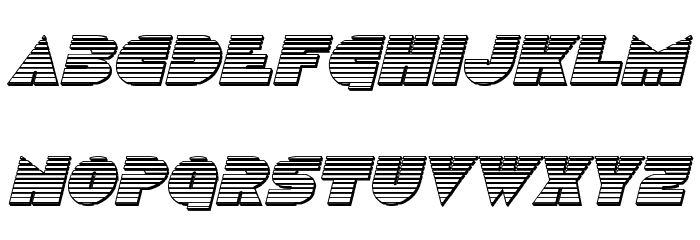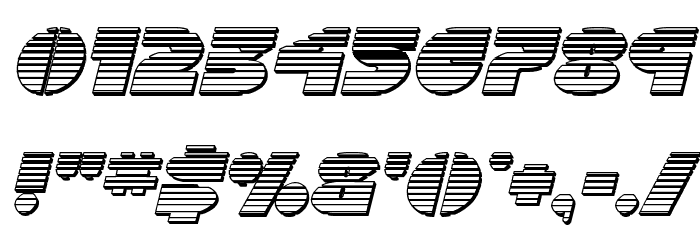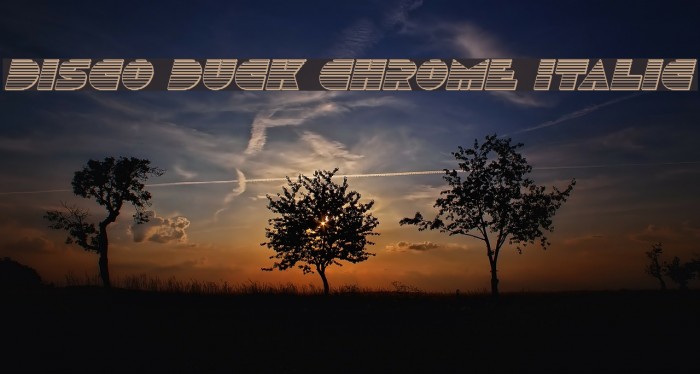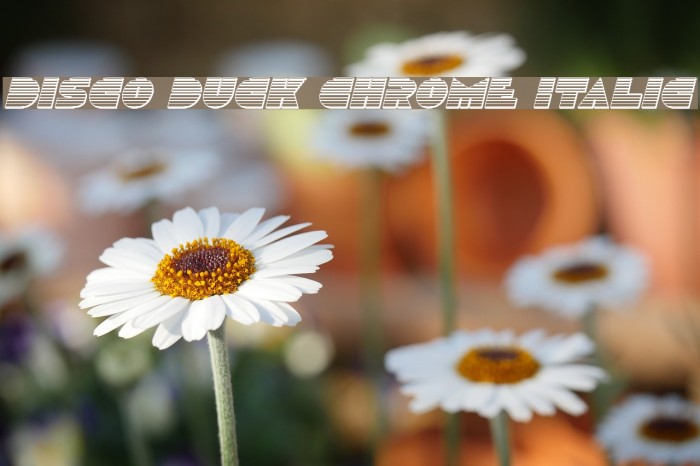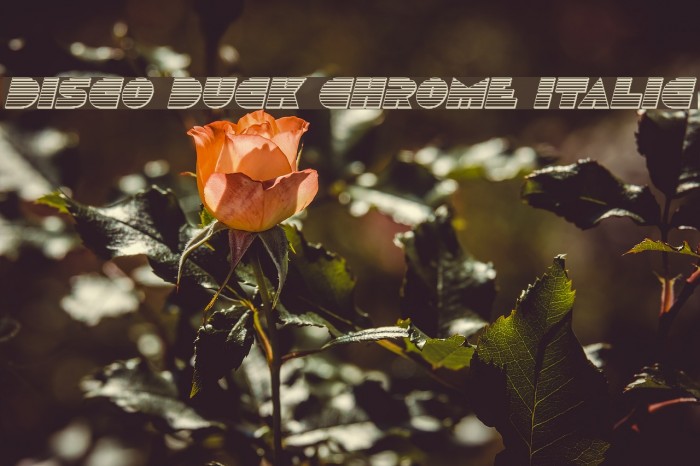
Disco Duck Chrome Italic Font
This font features a bold, decorative style with a distinct retro vibe. The characters are designed with horizontal stripes that give a sense of movement and energy, reminiscent of disco-era aesthetics. The italic slant adds a dynamic quality, enhancing the playful and vibrant feel. Each letter and number is uniquely crafted to maintain readability while showcasing a strong visual impact. The special characters are equally stylized, maintaining the cohesive look of the font. This font is perfect for projects that require a fun, energetic, and eye-catching typeface.
A bold, retro-inspired decorative font with horizontal stripes and an italic slant.
- Proposed Projects: Ideal for music event posters, retro-themed branding, party invitations, and eye-catching headlines.
- Overall Style: Retro, Decorative